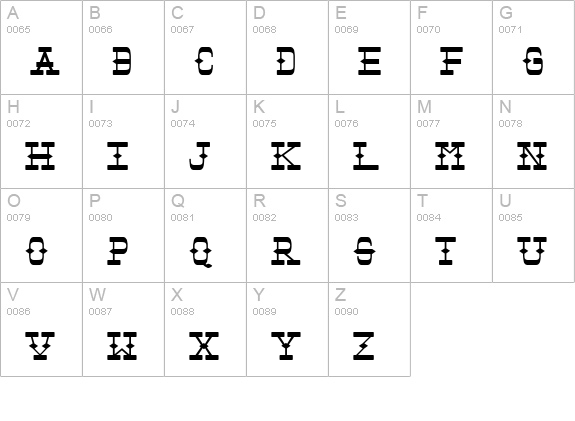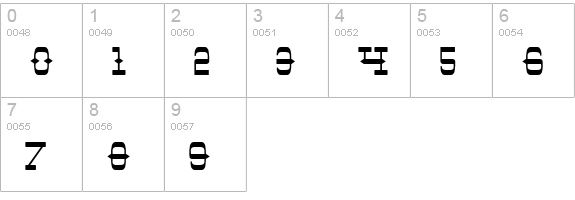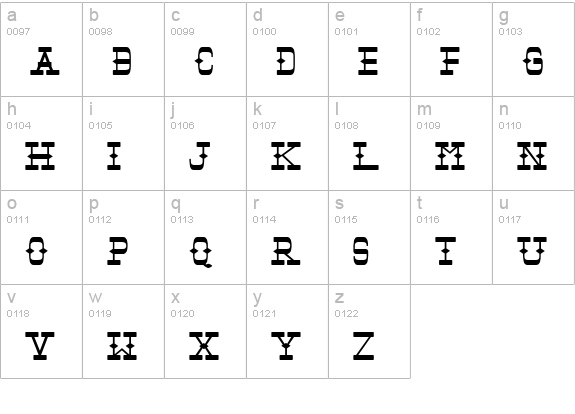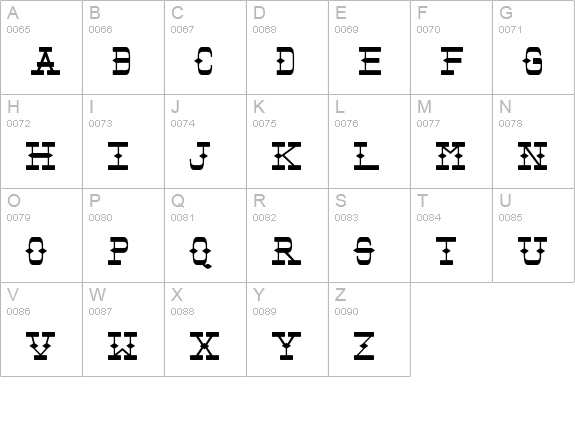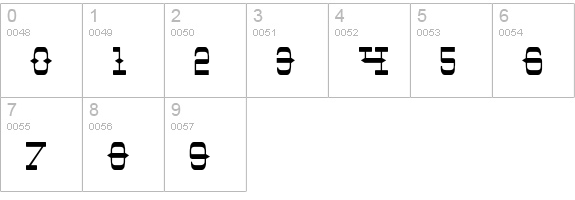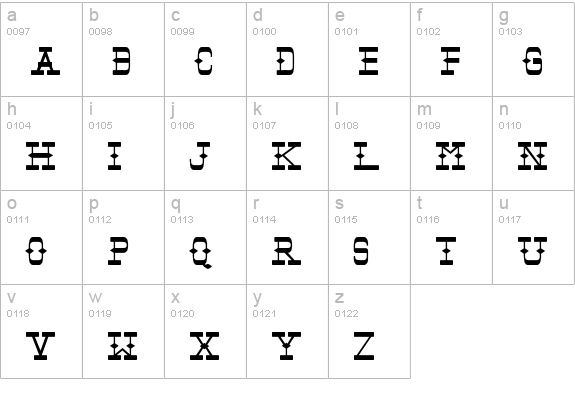
Tombstone Expanded Font Details
Tombstone Expanded is a distinctive, extended-width variant in the Tombstone typeface family \xE2\x80\x94 well suited to design and typography projects.
Tombstone Expanded font is a stunning typeface that exudes a timeless elegance combined with a touch of modernity. With its elongated and bold letterforms, this font captures attention and adds a unique flair to any design project. The expansion of the letters in Tombstone Expanded creates a sense of grandeur and sophistication, making it ideal for headlines, logos, and other eye-catching elements. Each character is meticulously crafted with clean lines and precise curves, ensuring legibility even at small sizes. One of the greatest features of Tombstone Expanded font is that it is freely available to download at FontsMarket.com. This means that designers, creatives, and typographers can easily access this remarkable font without any cost. Whether you are working on personal projects or professional designs, Tombstone Expanded font will elevate your work to new heights. The versatility of Tombstone Expanded font knows no bounds. Its bold and commanding presence makes it perfect for luxury brands, fashion magazines, movie posters, and more. Additionally, its clean and modern aesthetic lends itself well to contemporary designs, websites, and digital applications. When using Tombstone Expanded font, the possibilities are endless. It effortlessly combines the classic with the contemporary, making it a go-to choice for designers seeking a font that stands out from the crowd. Its timeless appeal ensures that it will remain relevant for years to come. So, if you are in search of a striking typeface that is both elegant and modern, look no further than Tombstone Expanded font. Download it for free at FontsMarket.com and let your creativity soar.